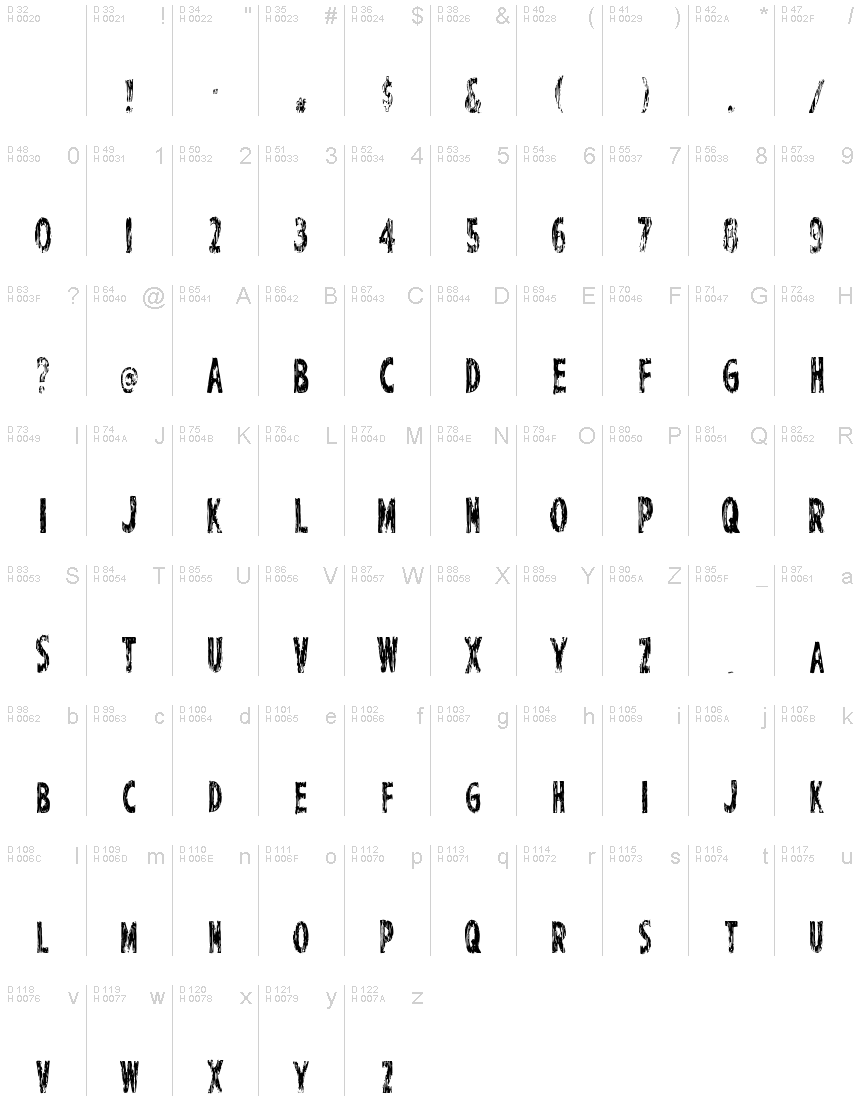
PerfectChisle
Perfect Chisle is a captivating display font that exudes a rugged, weathered charm. Designed by Max Infeld, this condensed typeface features an eroded aesthetic, lending it a distinctive industrial flair.
The irregular, chiseled letterforms evoke a sense of gritty authenticity, making this font particularly well-suited for bold headlines, impactful branding, and gritty editorial designs. Its condensed width allows for versatile use, complementing a wide range of design layouts.
Perfect Chisle's striking visual presence makes it a standout choice for projects seeking to convey a sense of rugged individuality and raw, uncompromising style.